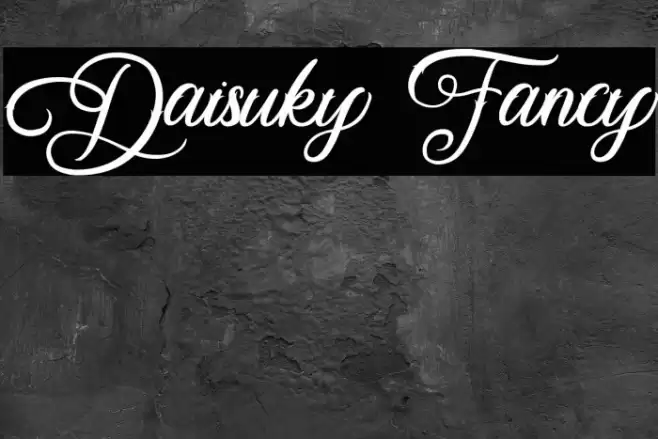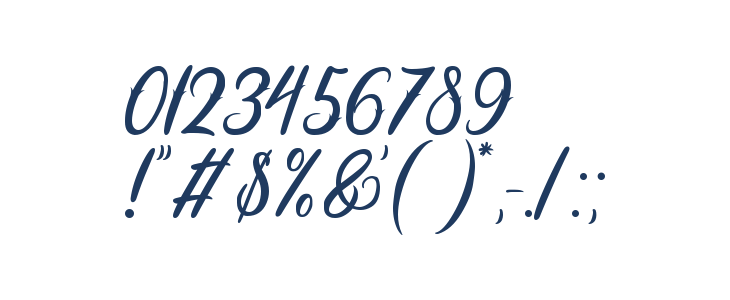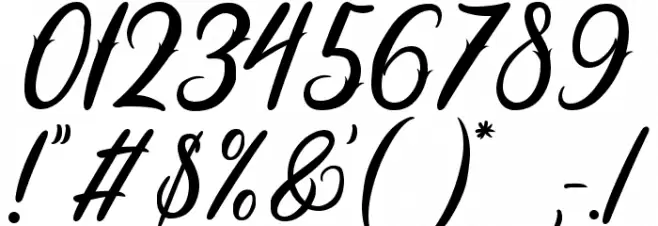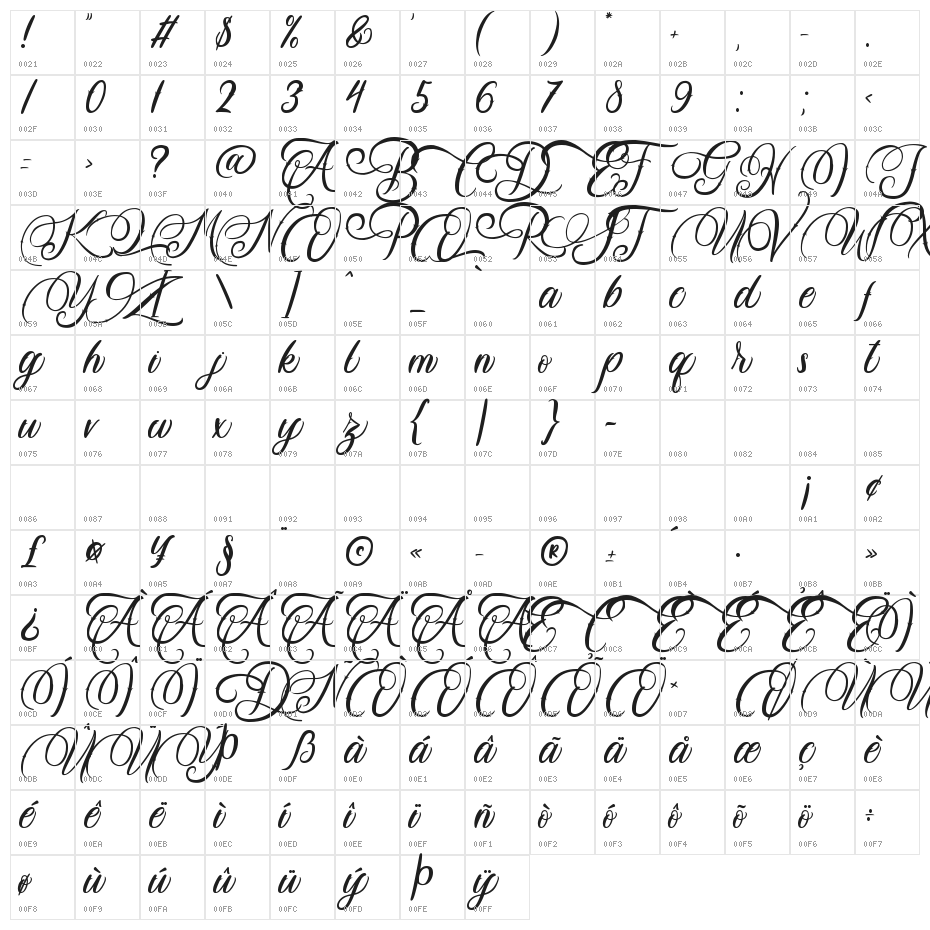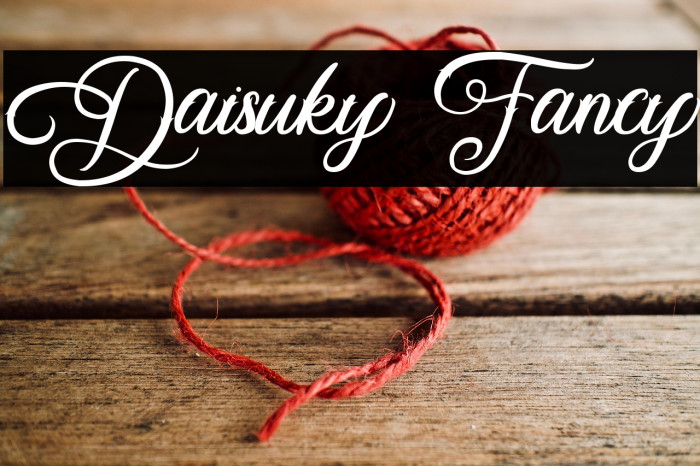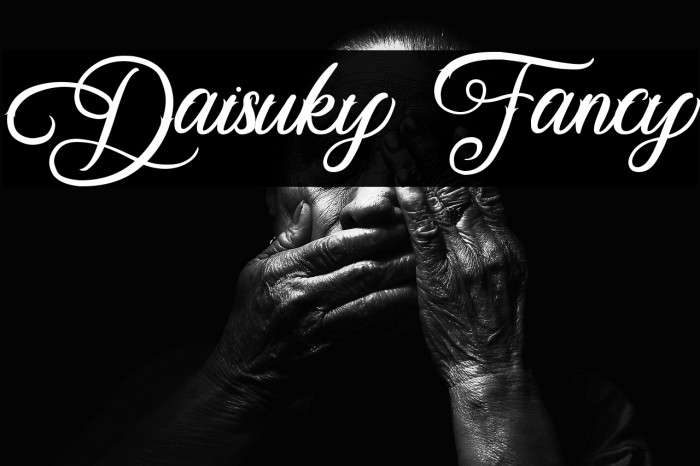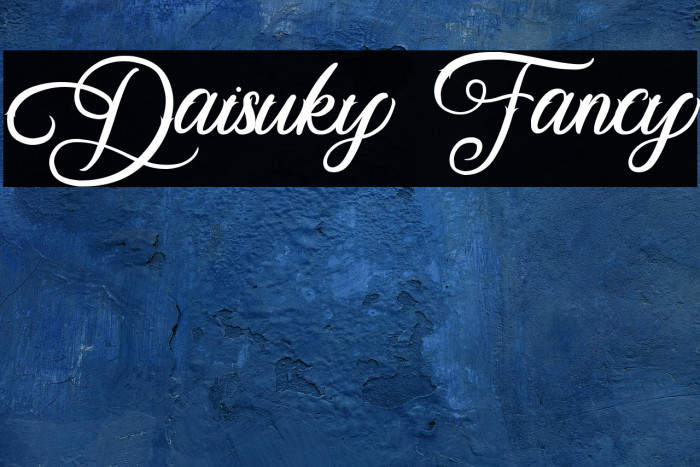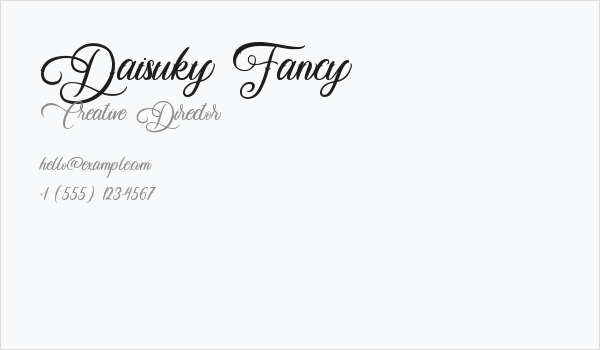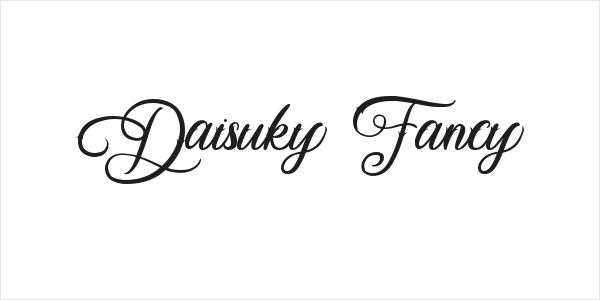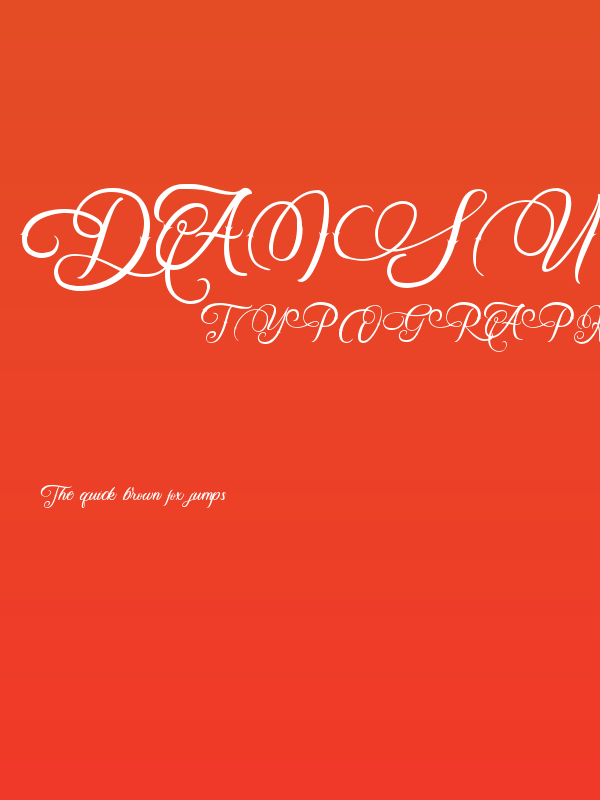
Daisuky Fancy Font
Daisuky Fancy Description
This elegant script font features a flowing, cursive style with intricate swirls and loops, giving it a sophisticated and decorative appearance. The uppercase letters are adorned with elaborate flourishes, while the lowercase letters maintain a smooth, connected flow. The numerals are consistent with the script style, offering a cohesive look throughout. Special characters are designed with the same attention to detail, enhancing the font's overall aesthetic. This font is ideal for projects that require a touch of elegance and sophistication.
A decorative script font with elegant swirls and loops from Uncategorized fonts.